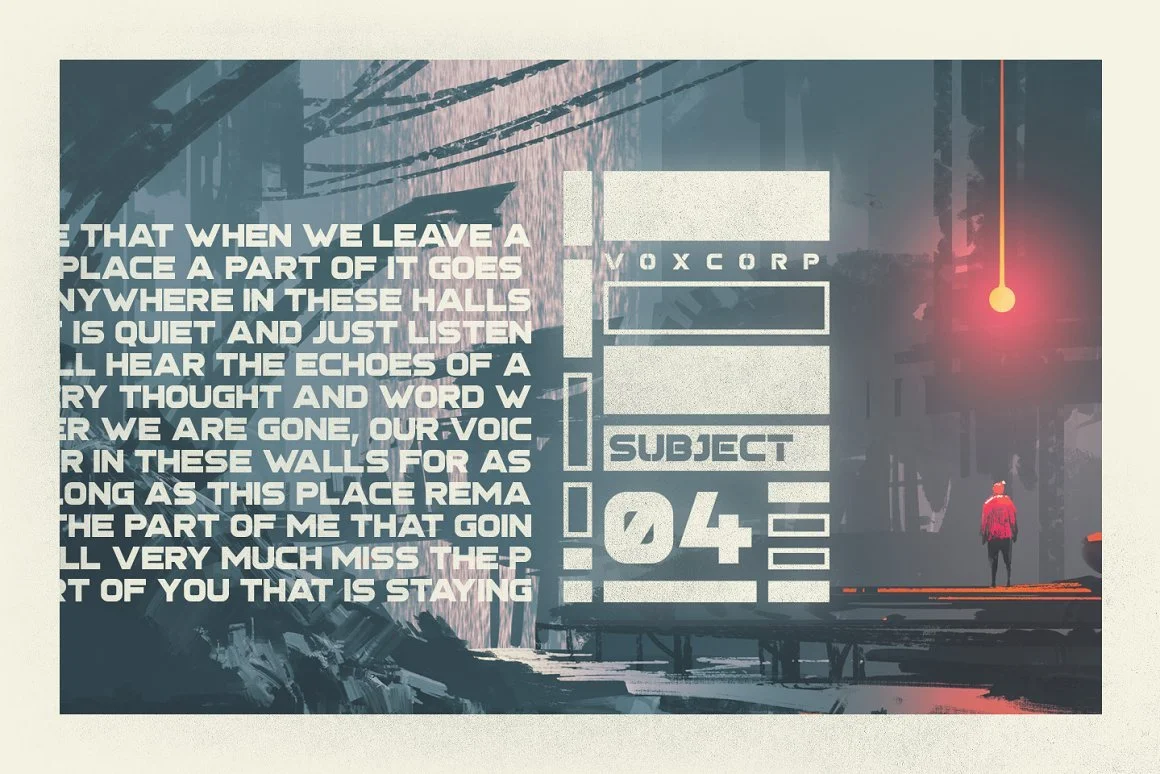
Stargaze is a retro futuristic typeface in regular and stencil formats. The font has a bold and big vibe and mixes sharp and round corners, kind of like old sci-fi movie titles.